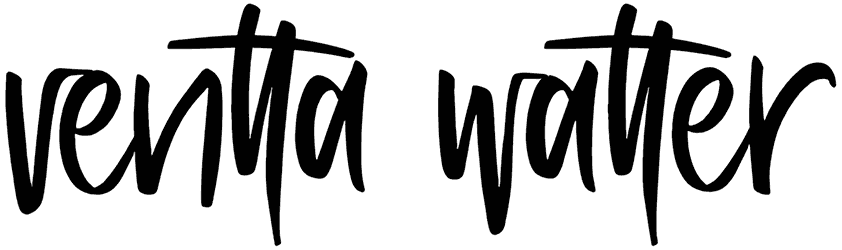
Ventta Watter Font
We recommend that you get out of your comfort zone and pick up a fresh script font such as Ventta Watter for your magazines, headlines, cosmetic product packaging, book covers, or social media posts.
With the help of this handwritten font, you can increase the influence of your work by adding a personalized touch to it. Needless to say that it is capable of sharing a sense of playfulness, professionalism, delicacy, and genius with the audience.